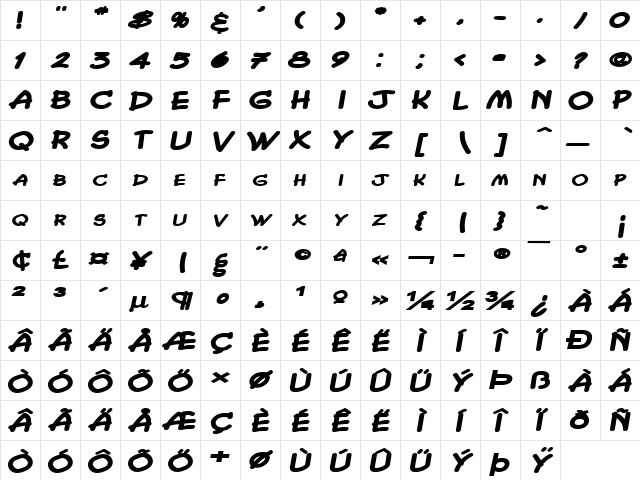
Chasm Extended Heavy BoldItalic
Design Context for Chasm Extended Heavy
Chasm Extended Heavy is a composed and adaptable typeface that performs quietly and consistently across a wide range of design contexts. The slanted form adds forward momentum and visual energy. Its bold stroke weight gives it real presence on the page.
Pro Tip: Use Chasm Extended Heavy for emphasis, pull quotes, and subheadings where its slanted energy can add rhythm to the layout.